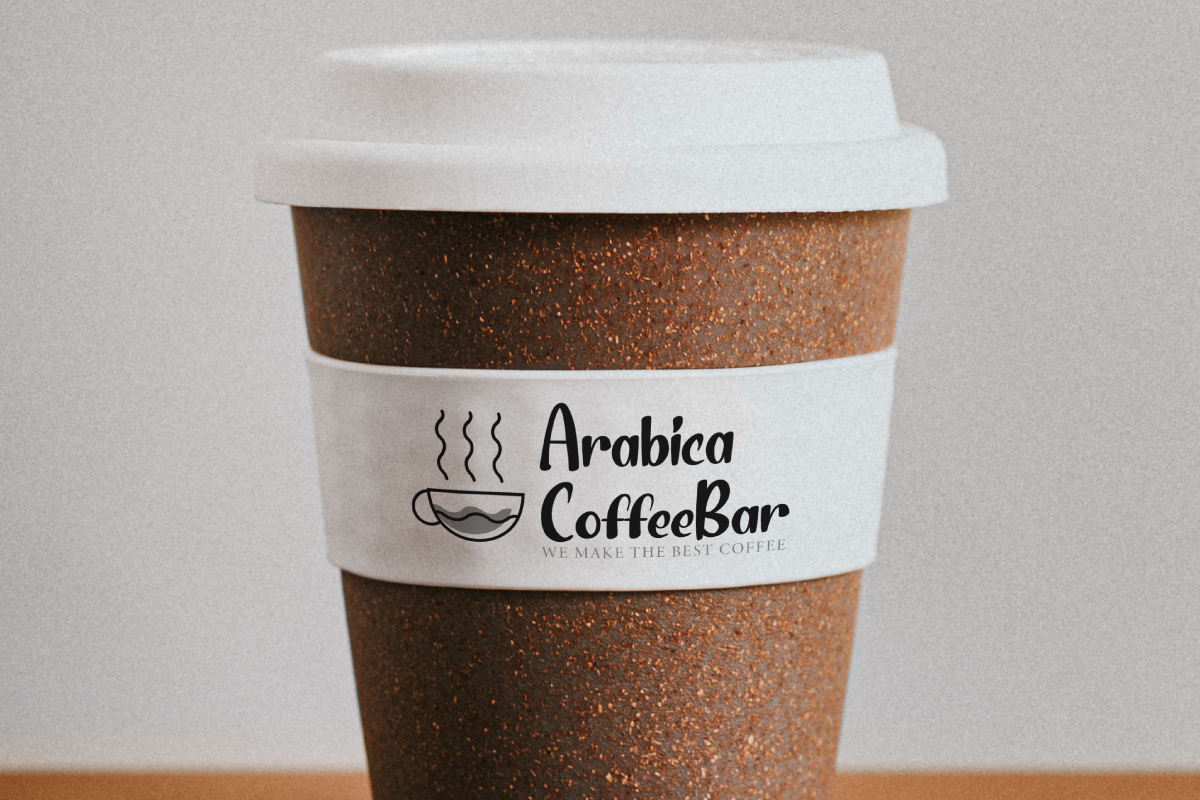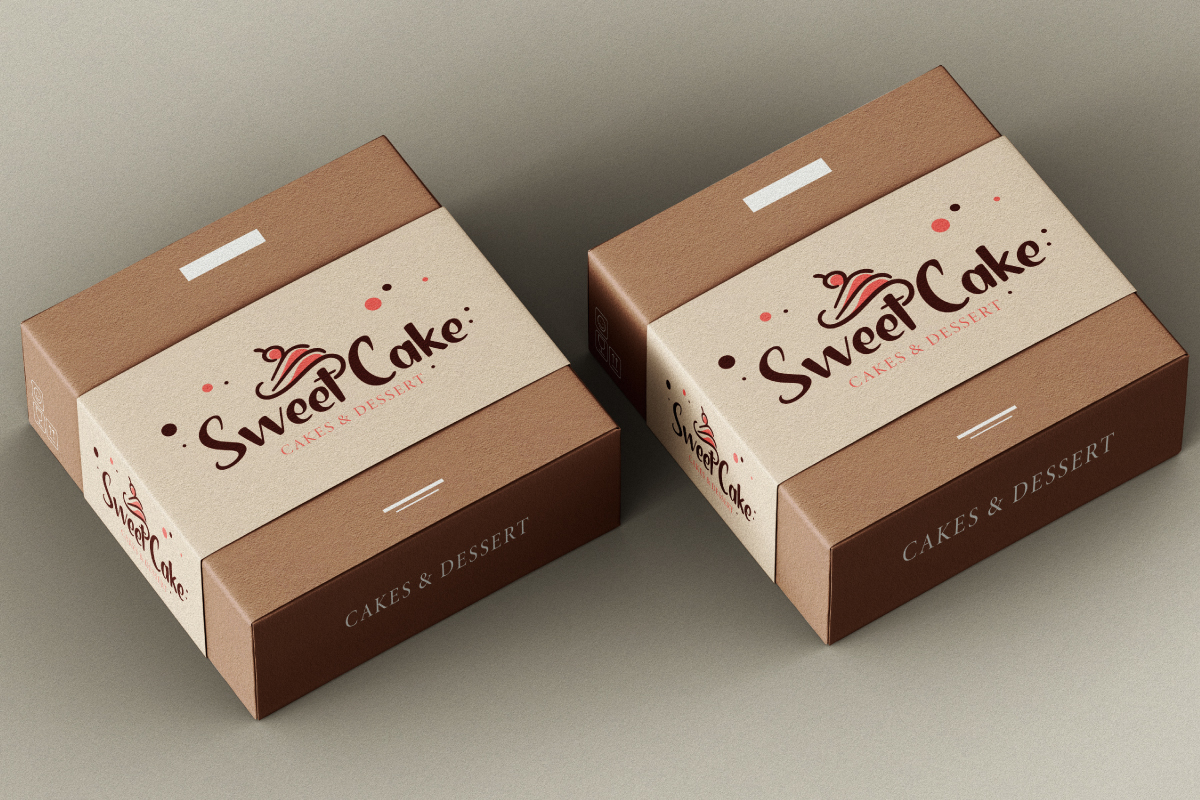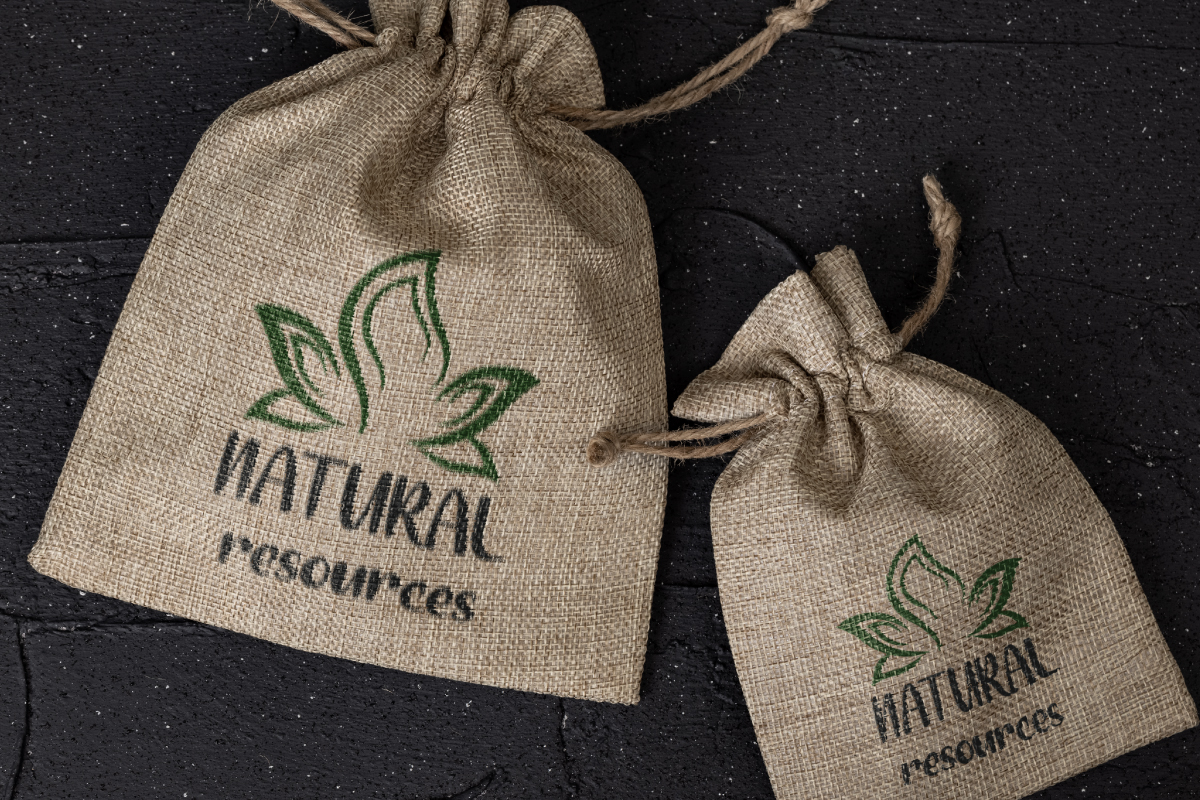
Bitter Pastry Font
Bitter Pastry Brush Font
This font was inspired from classic food packaging product lettering and will be awesome for any your special projects including : headlines, promotion, events, branding, advertising, magazine, signage, invitation, stationery, social media posts, label, or and any projects that need unique strong style. The theme/industries of this font is Restaurant, School, kindergarten, Vintage, Movie, Game, Music, Video, Sports, etc